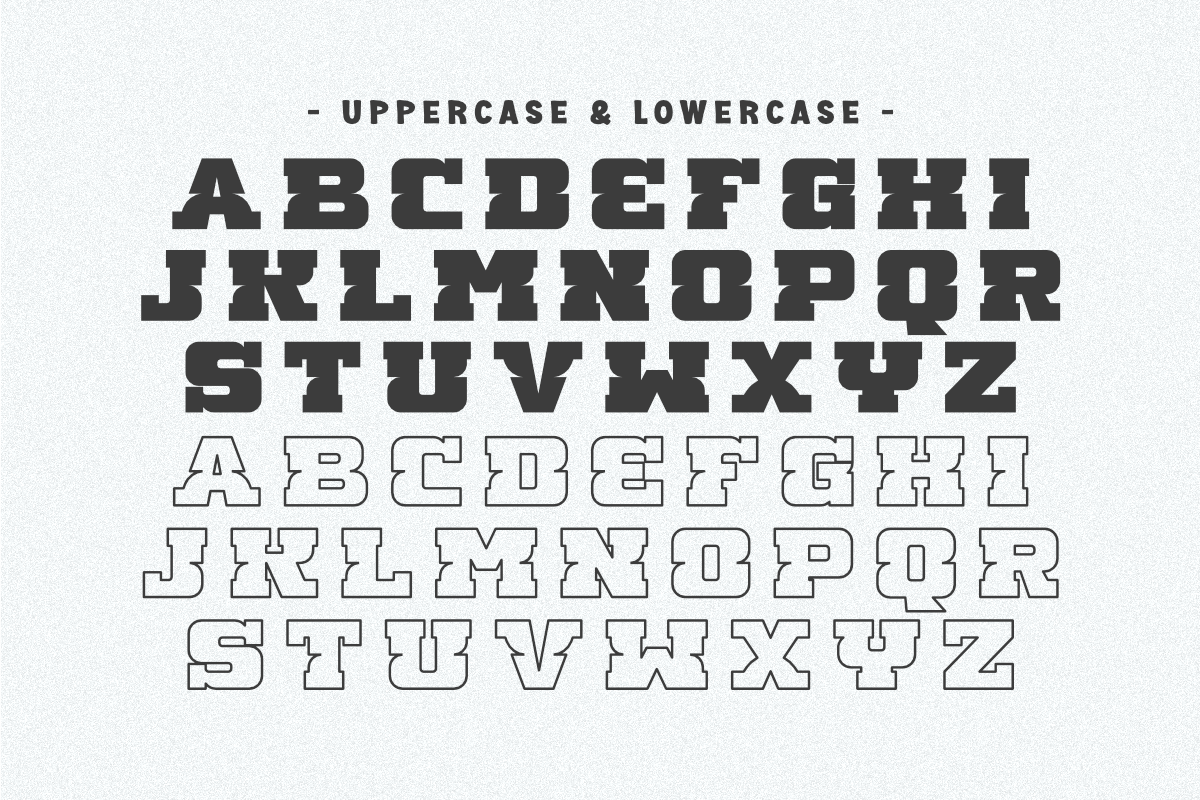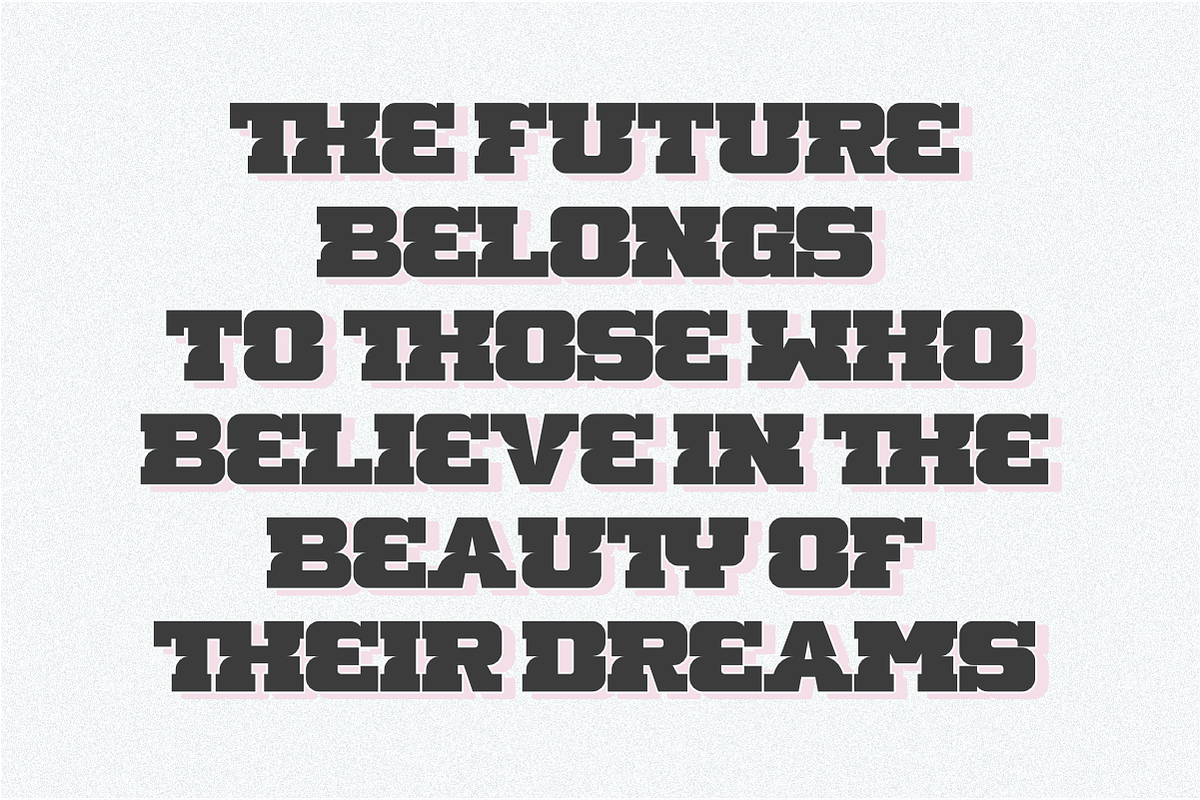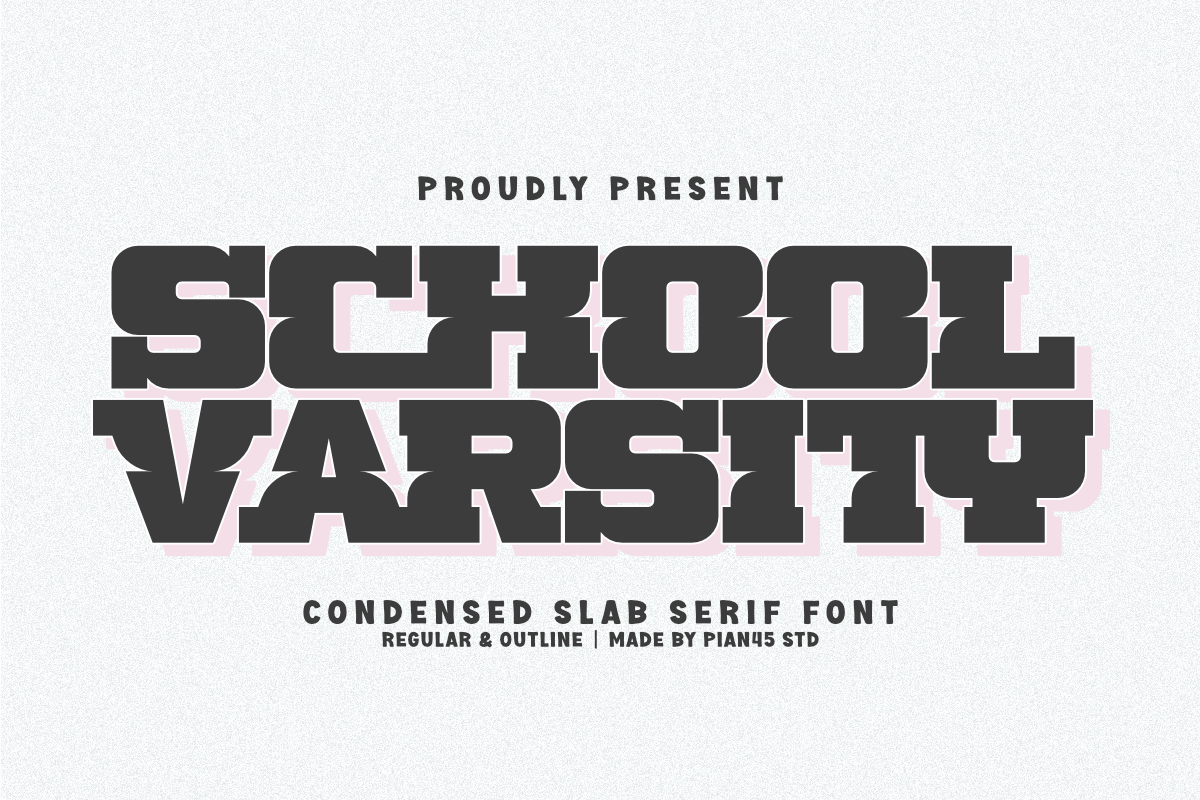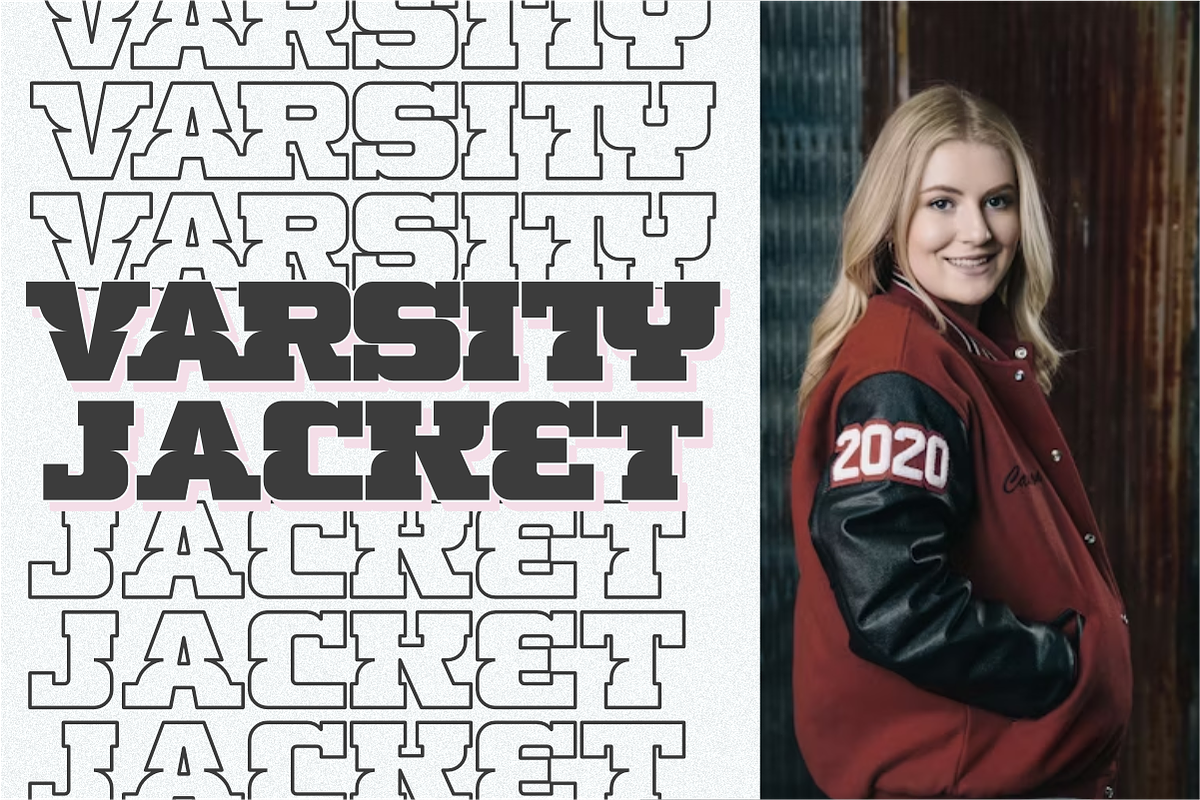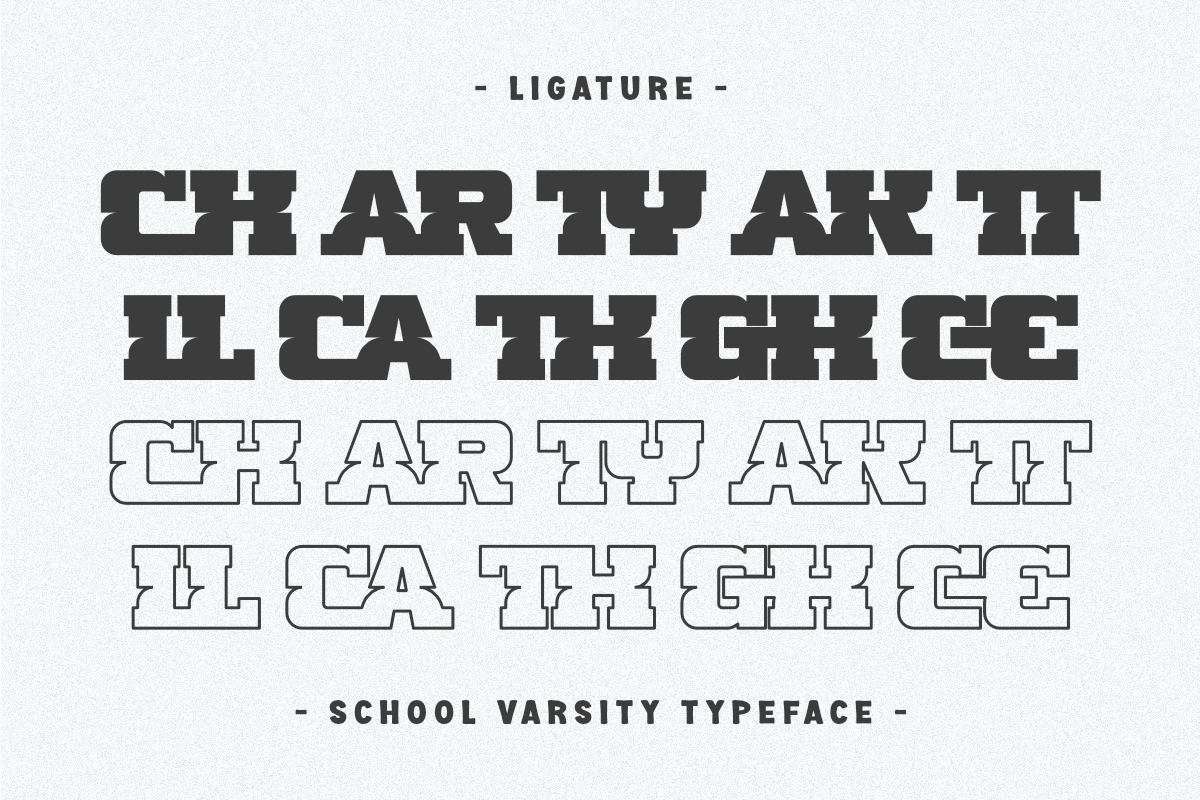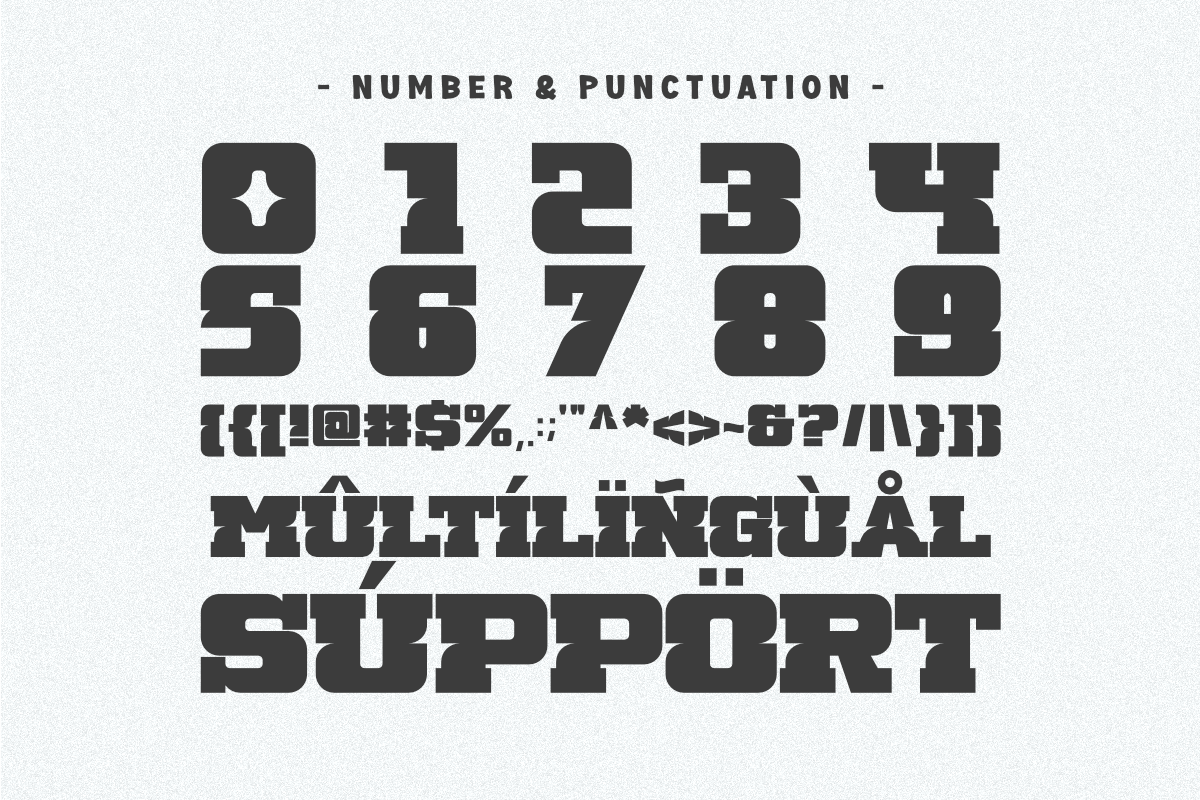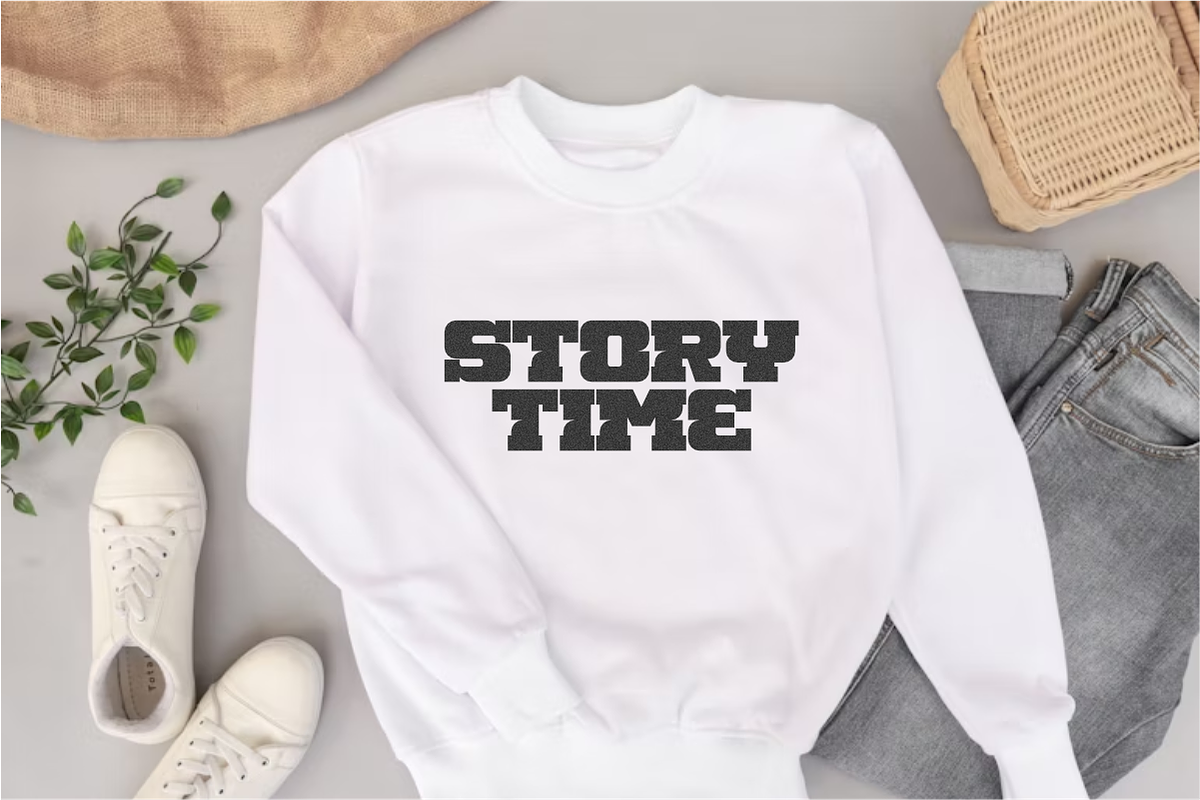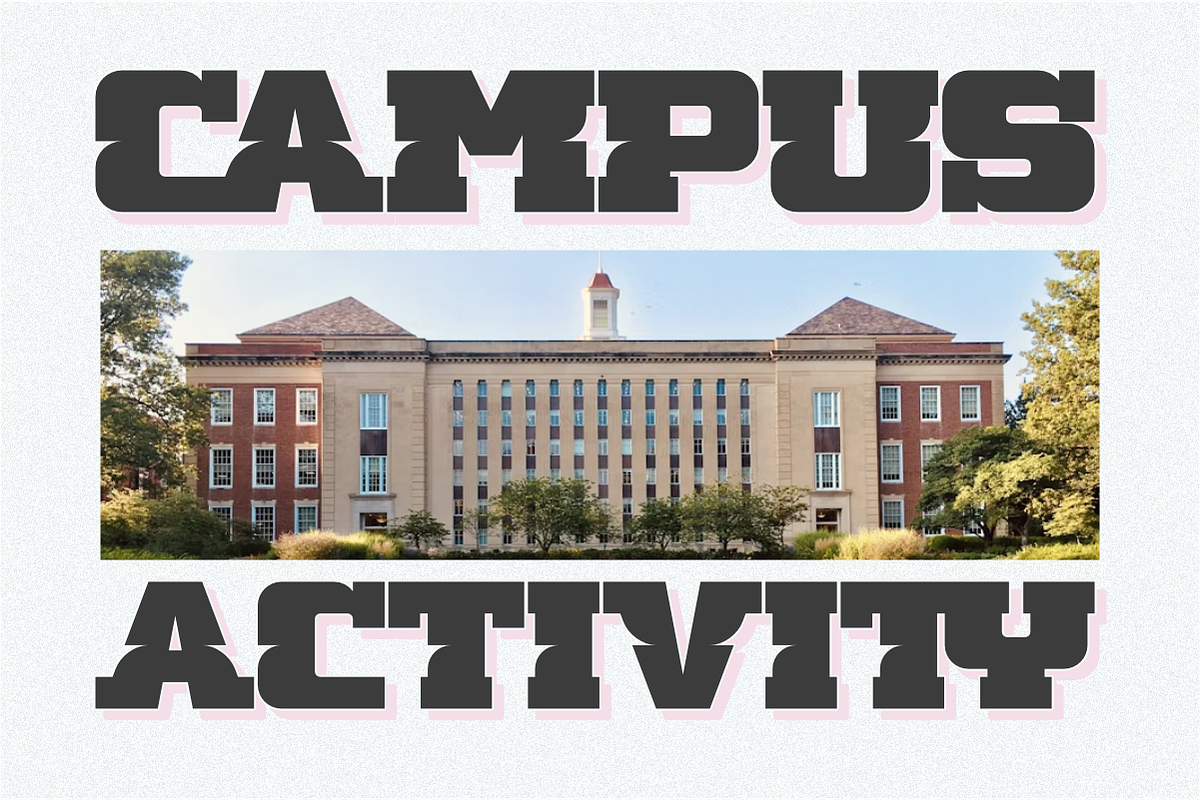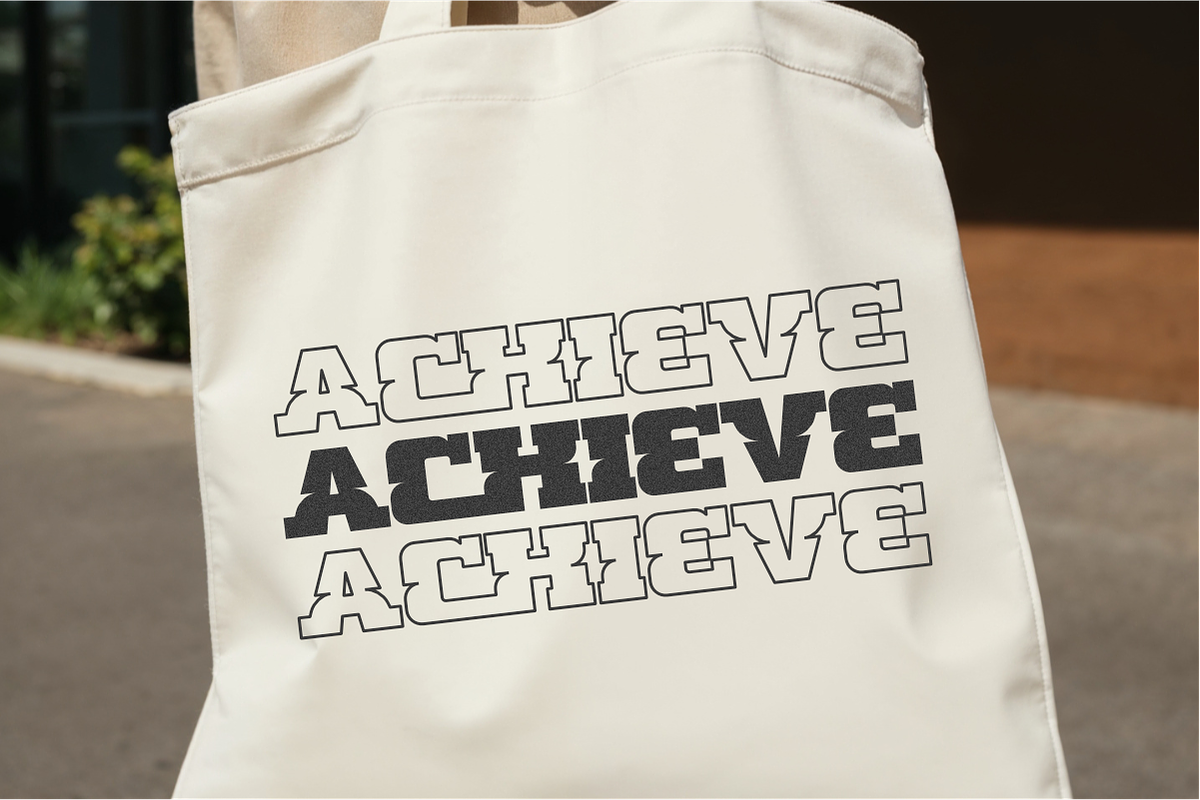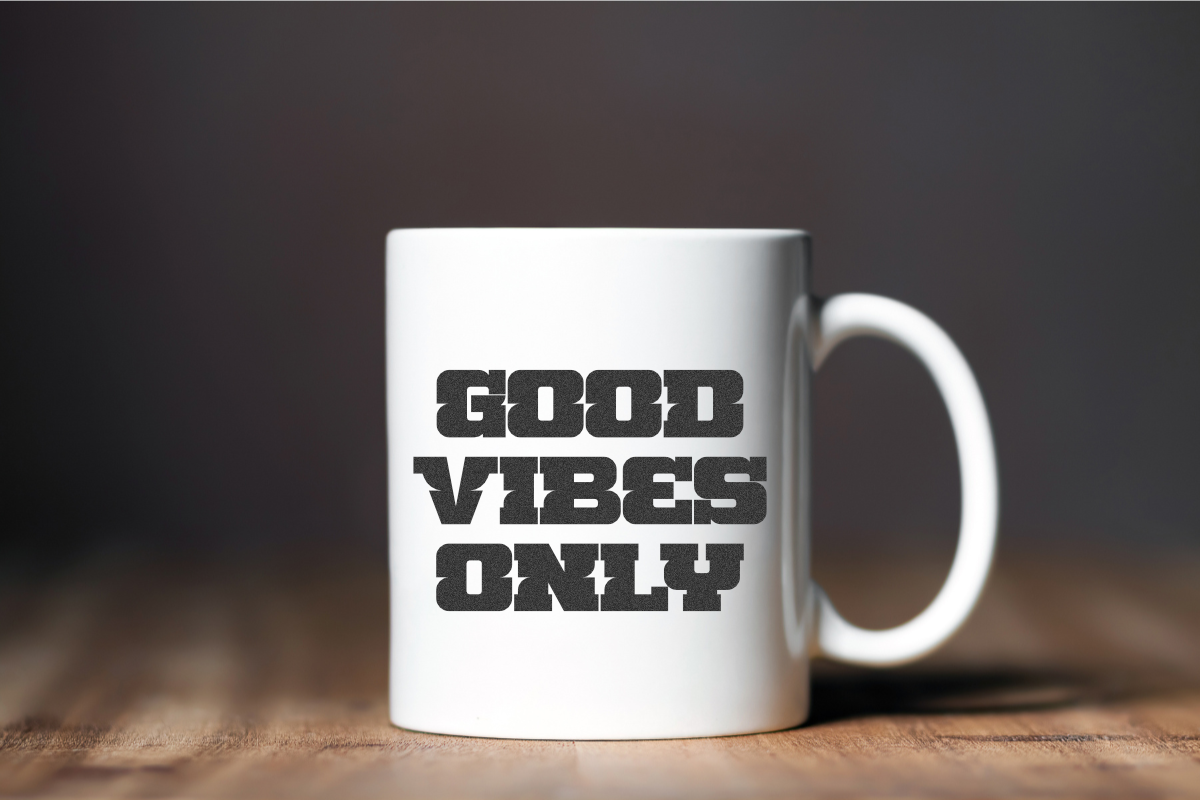
School Varsity - Condensed Slab
School Varsity is a bold and powerful condensed slab serif font that brings classic school spirit and athletic energy to your design. Inspired by vintage varsity lettering, this typeface combines modern precision with a nostalgic touch, making it perfect for sports themes, team logos, posters, apparel branding, and school projects. The clean lines and strong geometric shapes give your typography a confident and standout look. School Varsity comes with both Regular and Outline styles, allowing versatile use for headlines, merchandise, badges, and retro design aesthetics.